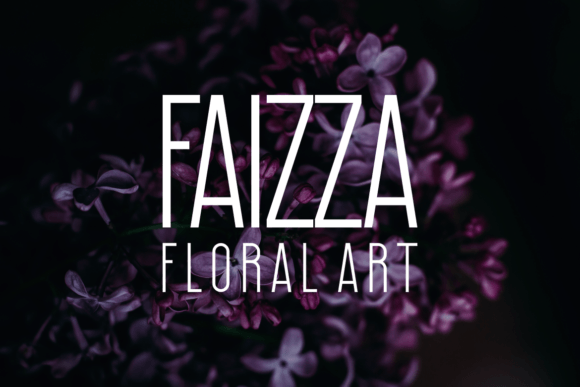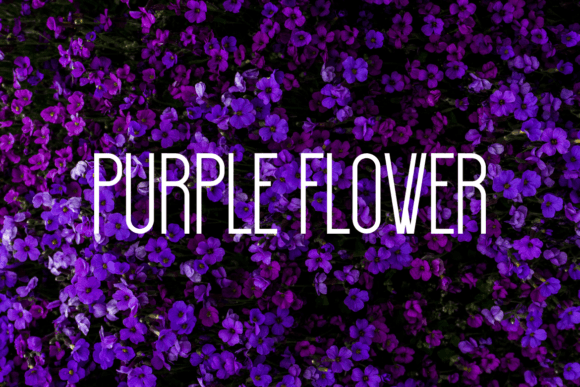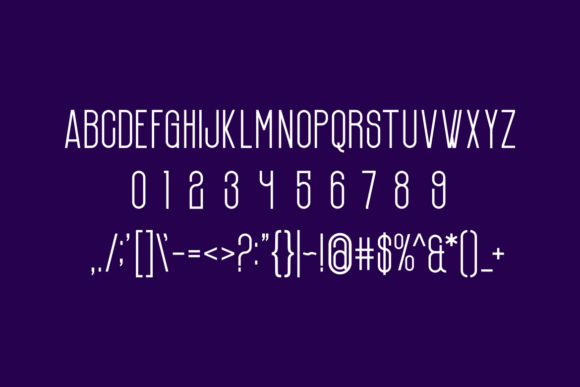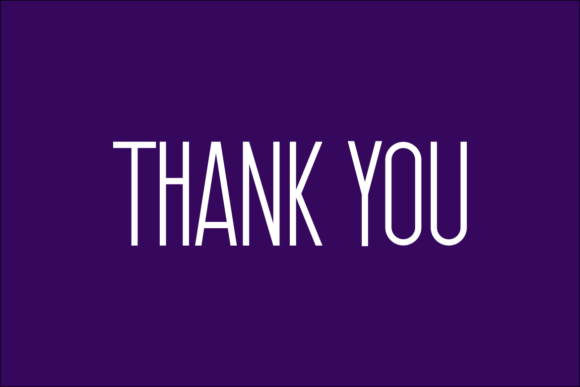
The Quest for the Perfect Summer Font
First Impressions: A Modern Classic
Elegant Summer is more than just a font – it’s a statement piece. Its clean, straight lines and modern look make it perfect for making your text stand out. The design is simple yet stylish, ideal for summer-themed projects that require a touch of elegance. Whether you’re working on a craft project, a branding campaign, or just want to add some flair to your social media posts, Elegant Summer is up to the task.
- ✨ Clean and modern design: Elegant Summer’s sleek lines and minimalist approach make it perfect for contemporary designs.
- ✅ High versatility: This font works beautifully for both digital and print projects, from social media graphics to brochures and posters.
- 💡 Easy to read: Despite its elegant feel, Elegant Summer remains highly legible, even at smaller font sizes.
While Elegant Summer is an excellent font, it’s not without its quirks. For instance:
- 🤔 Limited character set: While Elegant Summer covers the basic Latin character set, it might not have all the special characters or glyphs you need for more complex projects.
- ⚠️ Not ideal for body text: Due to its sleek and elegant nature, Elegant Summer might not be the best choice for lengthy body text. It’s better suited for headings and titles.
The Story Behind Elegant Summer
Elegant Summer was designed with the modern creative in mind. Its creator aimed to craft a font that was both stylish and versatile, perfect for a wide range of summer-themed projects. Whether it’s a beach vacation brochure or a summer sale poster, Elegant Summer brings a touch of sophistication and elegance.